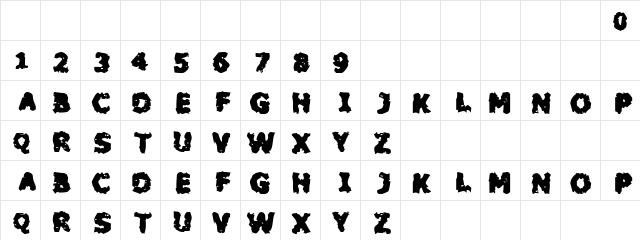
Hulla Bulla Regular
Design Context for Hulla Bulla Typeface
Hulla Bulla is a composed and adaptable typeface that performs quietly and consistently across a wide range of design contexts.